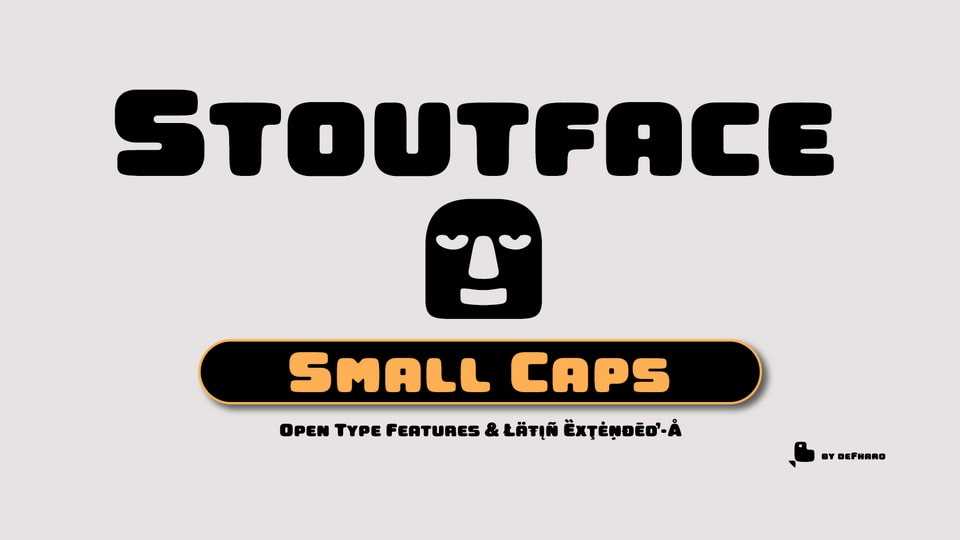
Download Stoutface Small Caps font, a very thick sans serif typeface, combining the best of modern design and the feel of times gone by.
Designer: Fernando Haro